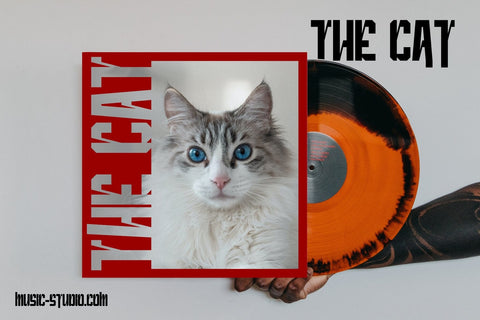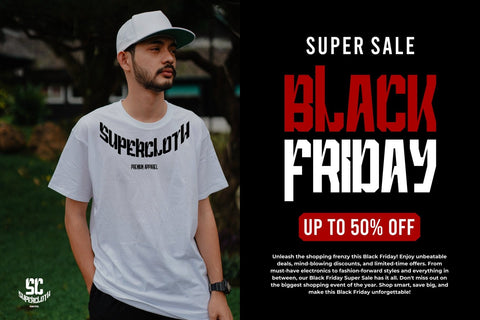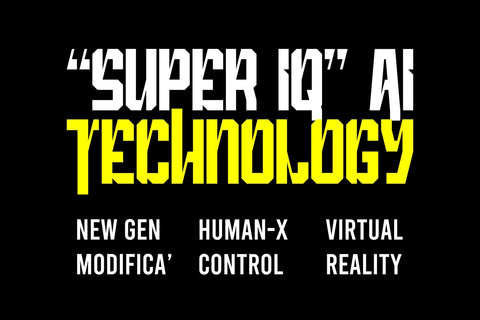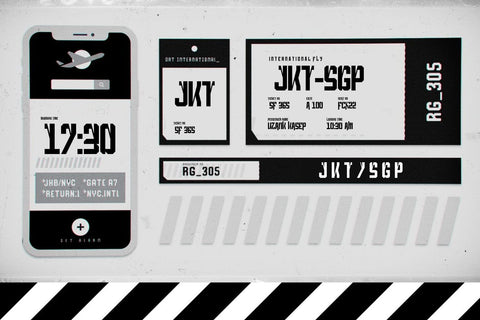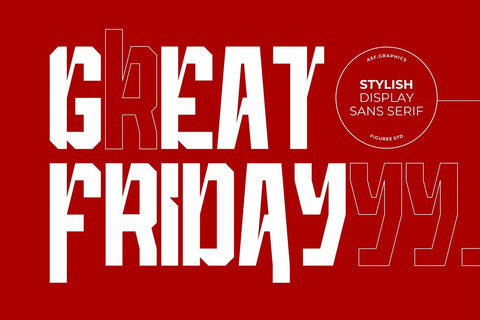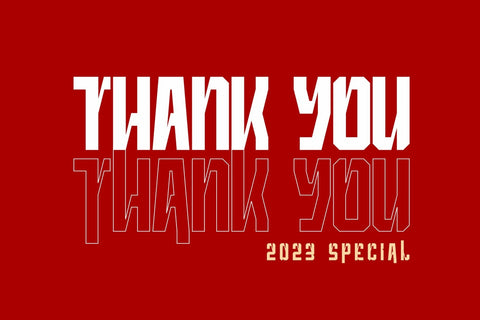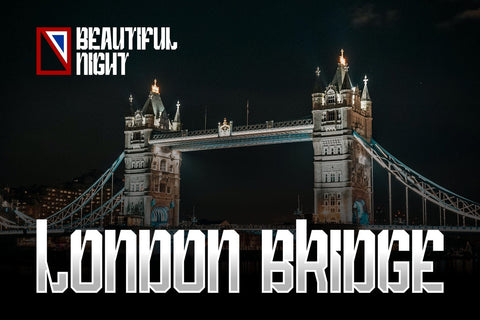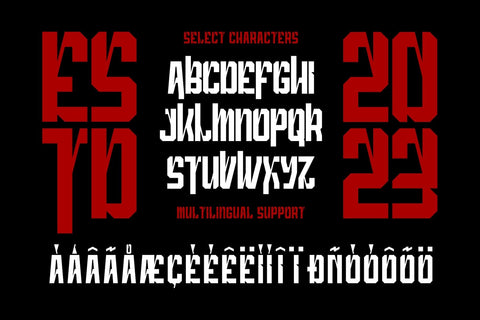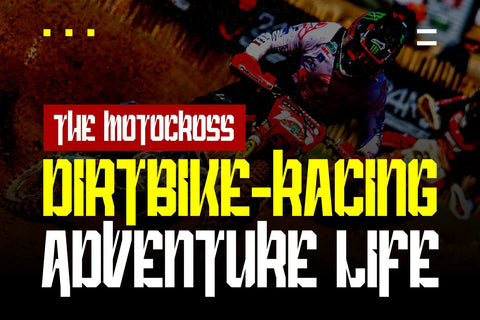
Great Friday - Stylish Display Font
Great Friday is a stylish and eye-catching display font that belongs to the Sans Serif family. With its sleek and modern letterforms, this font exudes a sense of sophistication and elegance. Each character is meticulously crafted, featuring clean lines and balanced proportions. Great Friday is perfect for creating impactful headlines, logos, branding materials, and any design project that requires a touch of contemporary style. Its versatility and legibility make it a go-to choice for designers seeking a refined and polished look. Elevate your designs with Great Friday and make a lasting impression.